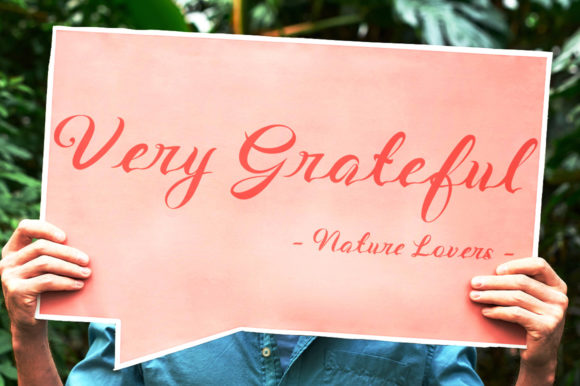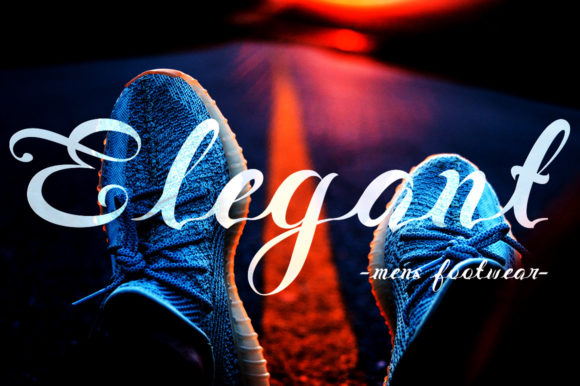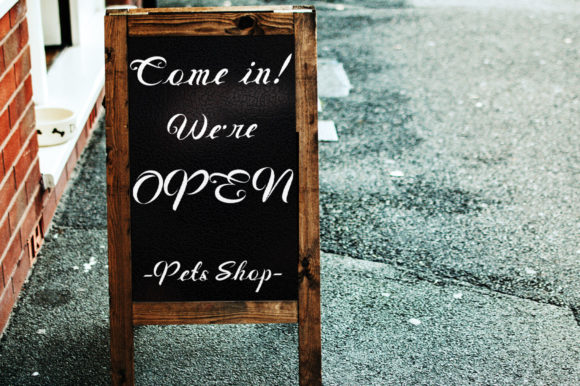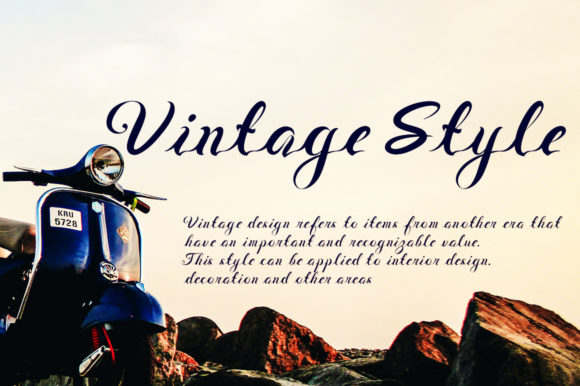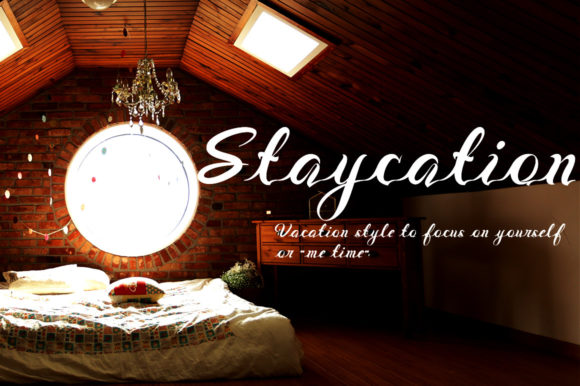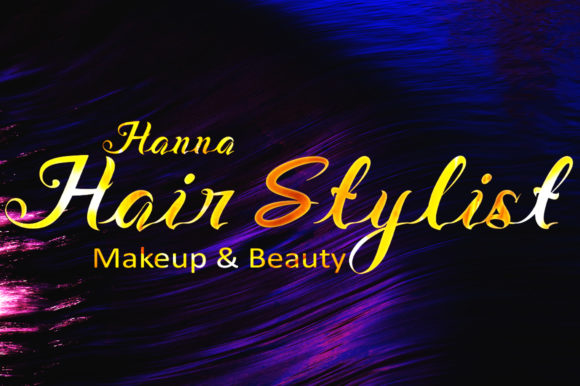
Introducing Backnote Font: Elevate Your Designs with Elegance and Personality
In the world of typography, a font can make or break the aesthetic of a design. For those seeking a unique and elegant handwritten touch, Backnote Font is an exceptional choice. This versatile font is perfect for a wide range of projects that demand a personalized style, including wedding invitations, thank you cards, weddings, greeting cards, logos, and more. In this article, we’ll dive into the beauty and functionality of Backnote Font, exploring its features, uses, and benefits for designers and crafters.
The Beauty of Backnote Font
Backnote Font boasts a distinctive, elegant handwritten style that exudes sophistication and charm. Its unique character set and flowing lines make it an ideal choice for designs that require a touch of personality. Whether you’re creating wedding stationery, branding materials, or greeting cards, Backnote Font adds a level of refinement and luxury that’s sure to impress.
Key Features of Backnote Font
- Unique and Elegant Design: Backnote Font features a one-of-a-kind, elegant handwritten design that sets it apart from other fonts.
- Versatility: Suitable for a wide range of projects, including wedding invitations, thank you cards, weddings, greeting cards, logos, and more.
- Personalized Style: Adds a touch of personality and sophistication to any design.
- Easy to Read: Despite its elegant nature, Backnote Font remains clear and easy to read, making it perfect for both digital and print applications.
Uses of Backnote Font
Backnote Font’s versatility makes it an excellent choice for various design projects. Here are some popular uses:
- Wedding Stationery: Create stunning wedding invitations, save-the-date cards, and thank you notes with a personal touch.
- Greeting Cards: Design beautiful birthday, anniversary, and holiday cards that stand out from the crowd.
- Branding and Logos: Add a touch of elegance to your brand’s identity with a custom logo or typography.
- Social Media Graphics: Elevate your social media presence with stylish and sophisticated graphics.
Backnote Font offers numerous benefits for designers and crafters looking to elevate their work:
- Time-Saving: With a unique and elegant font at your disposal, you can save time and effort in creating custom designs from scratch.
- Increased Creativity: Backnote Font’s versatility and charm can inspire new ideas and creative directions for your projects.
- Professional Results: Achieve high-end results without extensive design experience, making it perfect for freelance designers, small businesses, and DIY crafters.
Tips for Using Backnote Font
To get the most out of Backnote Font, consider the following tips:
- Pair with Complementary Fonts: Combine Backnote Font with complementary fonts to create visual interest and hierarchy in your designs.
- Experiment with Colors: Play with different color schemes to find the perfect match for your design and brand.
- Use for Headings and Titles: Take advantage of Backnote Font’s elegance by using it for headings and titles, and pairing it with a simpler font for body text.
Backnote Font is a game-changer for designers and crafters seeking to add a touch of elegance and personality to their work. With its unique and elegant handwritten design, versatility, and ease of use, it’s an excellent choice for a wide range of projects. Whether you’re creating wedding stationery, branding materials, or social media graphics, Backnote Font is sure to elevate your designs and leave a lasting impression.